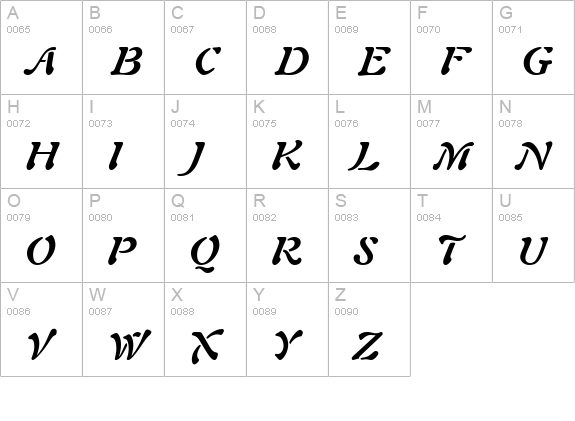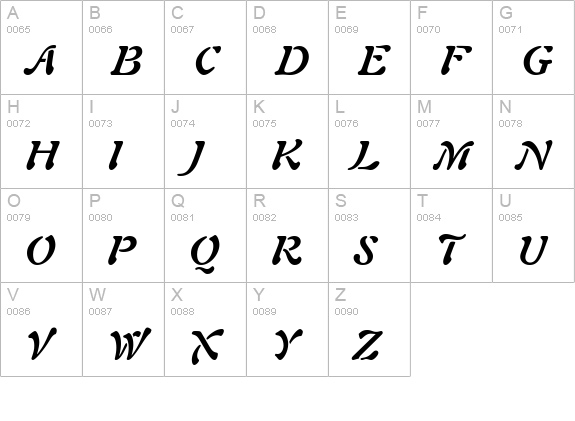
Palette SSi Bold Italic is a strong, high-contrast, italic variant in the Palette typeface family \xE2\x80\x94 well suited to headlines, attention-grabbing titles, and strong calls-to-action.
Palette SSi Bold Italic font is a stunning typeface that exudes elegance and sophistication. It is the perfect choice for designers and creatives who want to make a bold statement with their typography. The bold and italic combination adds a touch of drama and flair to any project, making it stand out from the crowd. This font is not only visually captivating, but it also offers excellent legibility and readability. The characters are beautifully crafted with a perfect balance between thick and thin strokes, resulting in a harmonious and visually pleasing design. Whether used for headlines, titles, or body text, Palette SSi Bold Italic font will captivate readers and leave a lasting impression. What makes Palette SSi Bold Italic font even more appealing is that it is freely available to download at FontsMarket.com. This means that designers can access this exceptional typeface without any cost, making it a valuable asset for any project, no matter the budget. By offering this font for free, the creators of Palette SSi Bold Italic font have made it accessible to a wide range of users, ensuring that everyone has the opportunity to enhance their designs with its beauty. In conclusion, Palette SSi Bold Italic font is a remarkable typeface that combines elegance, sophistication, and legibility. Its bold and italic style adds a touch of drama and flair to any project, making it a standout choice for designers and creatives. With its availability for free download at FontsMarket.com, Palette SSi Bold Italic font is an excellent resource for any designer looking to elevate their typography and create visually stunning designs.